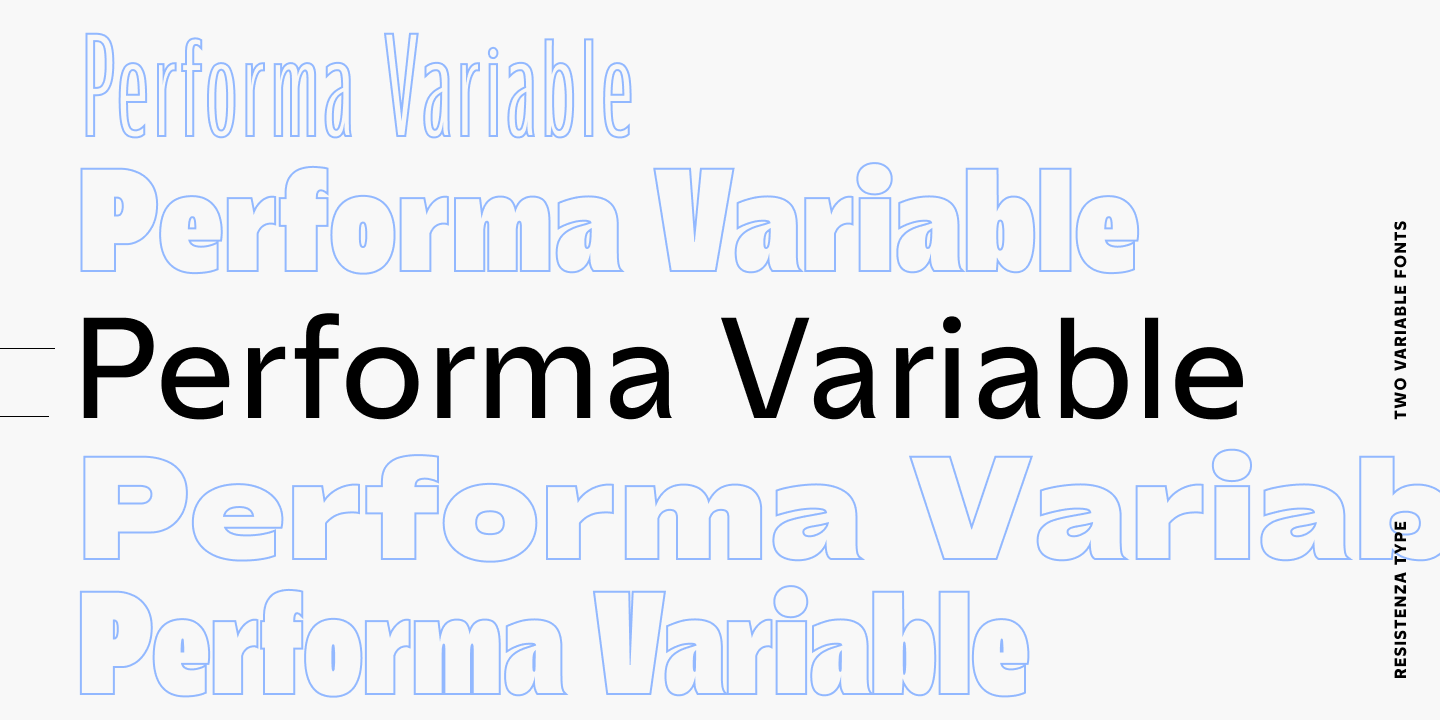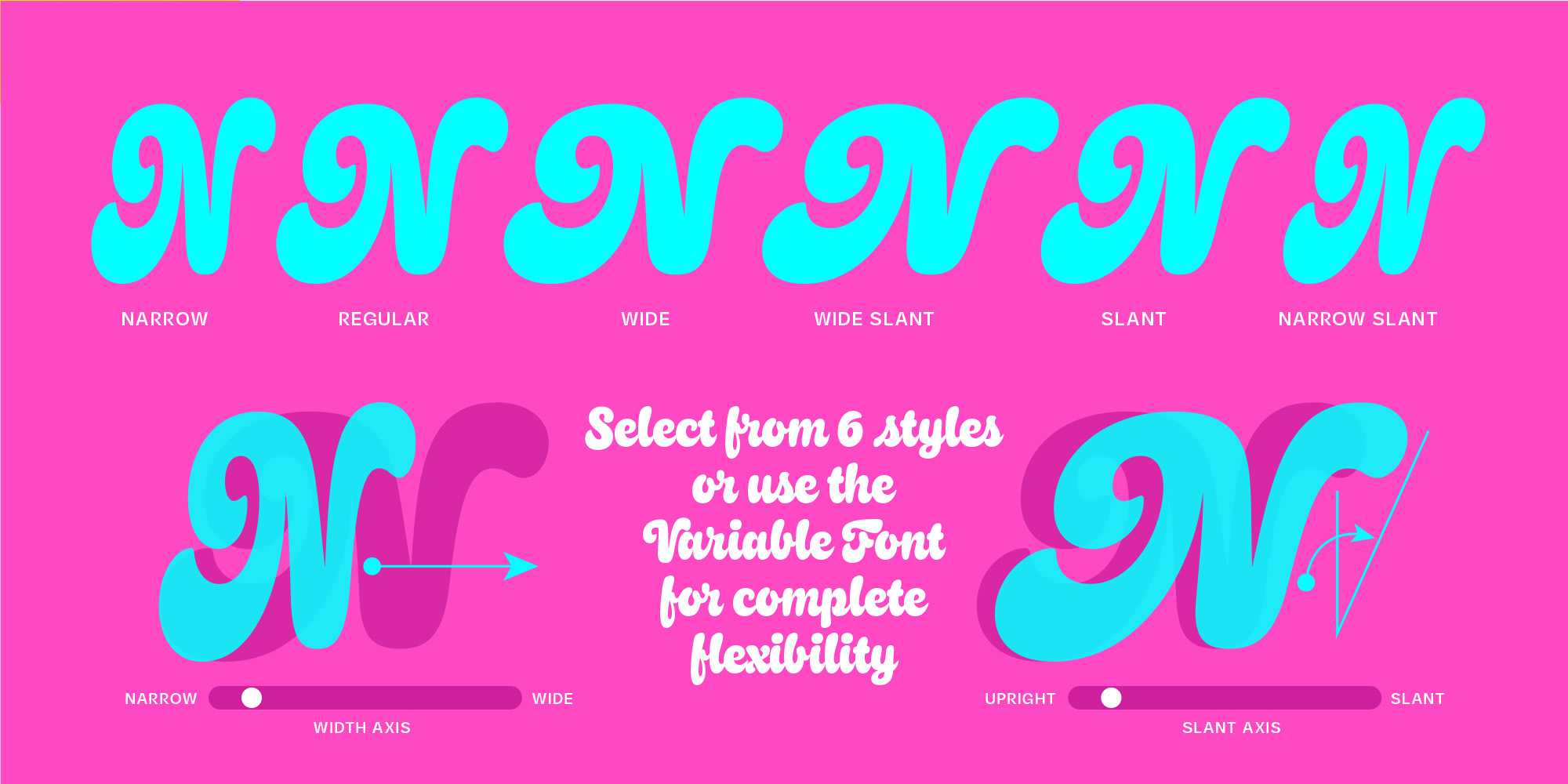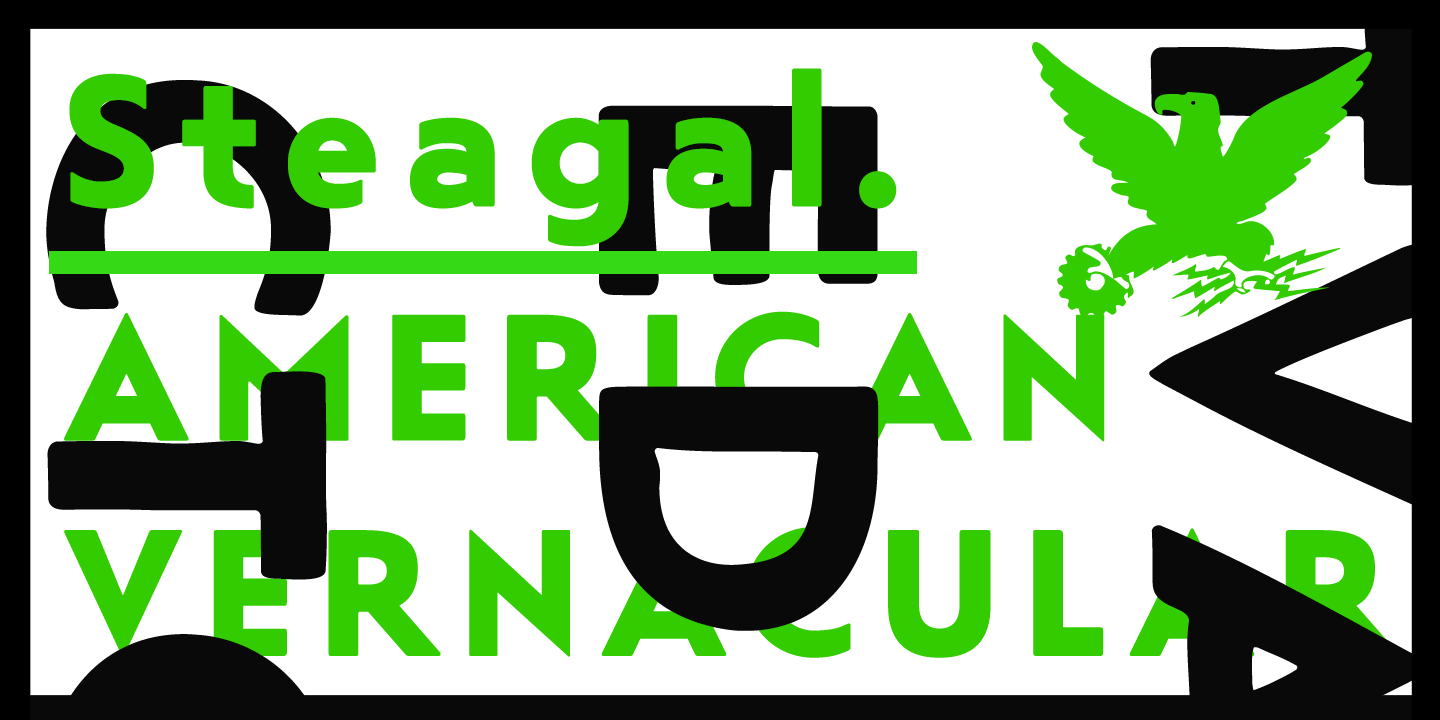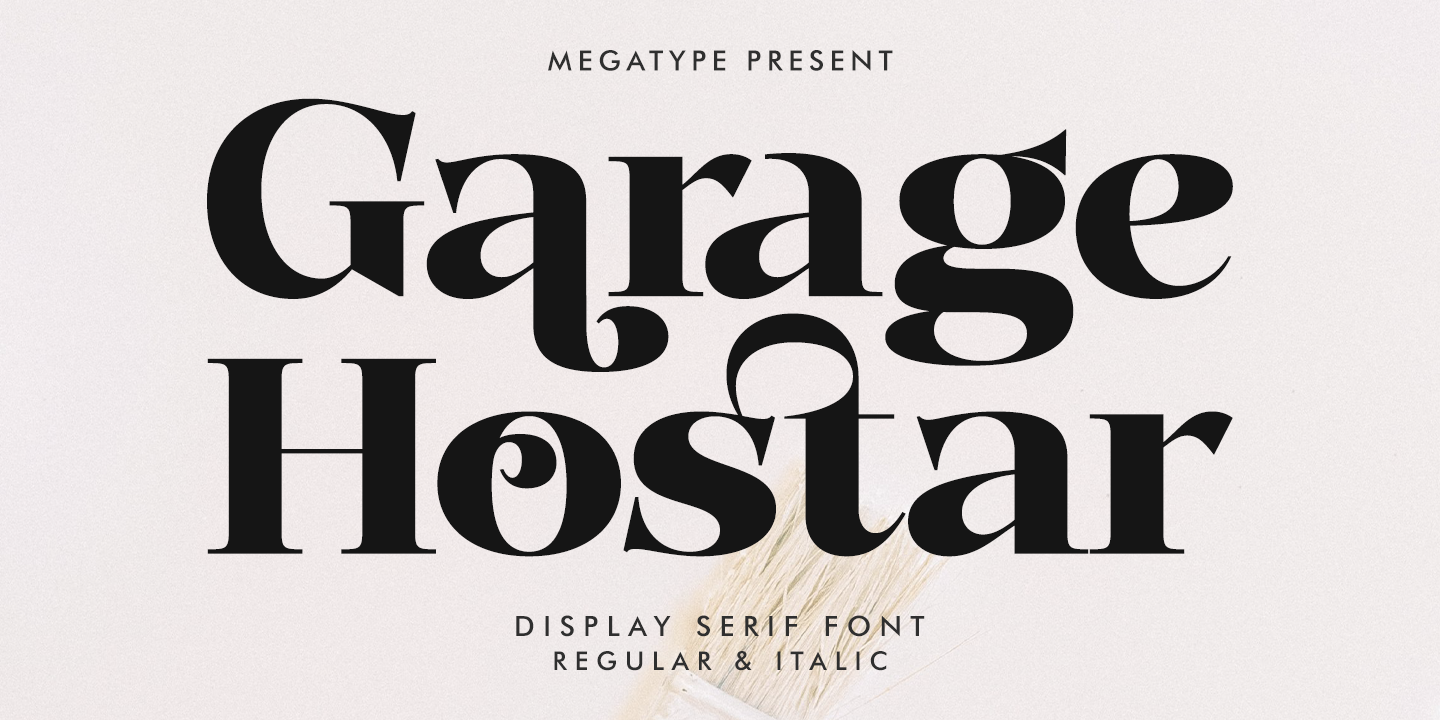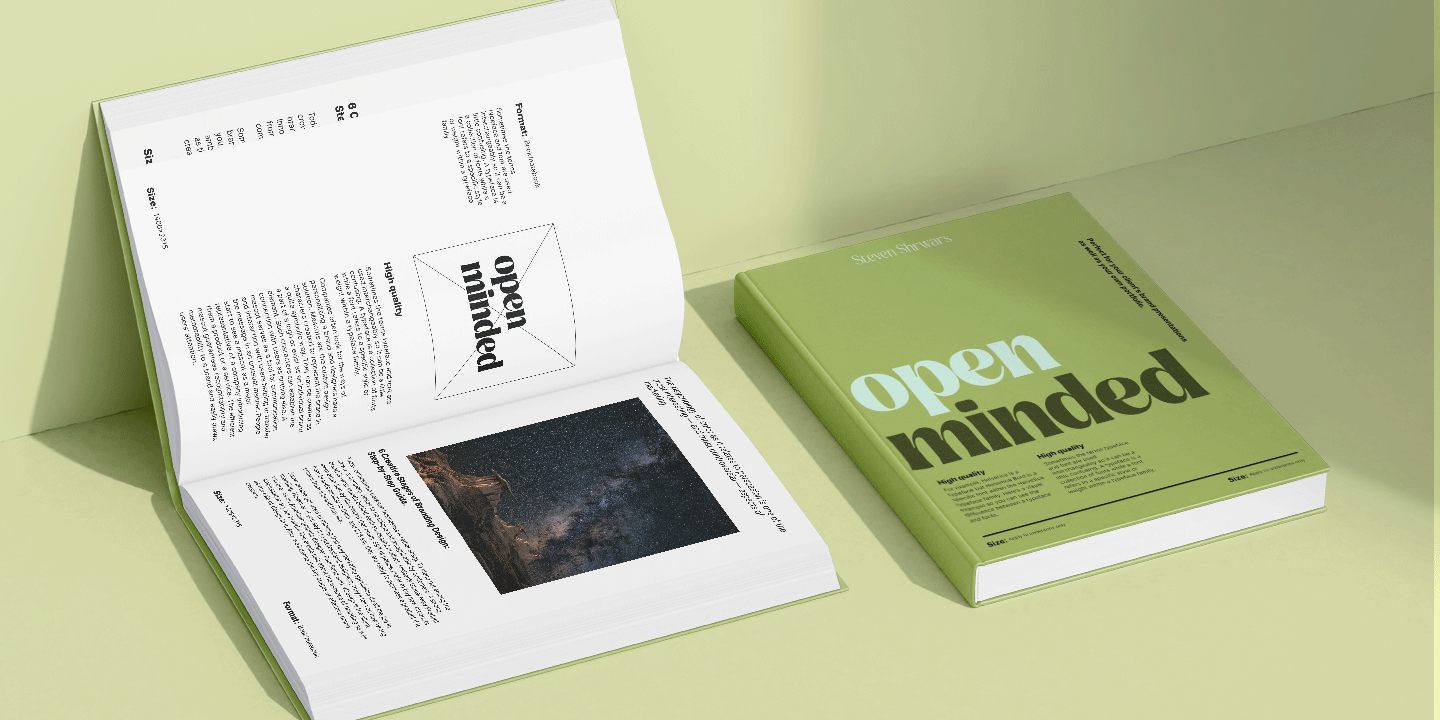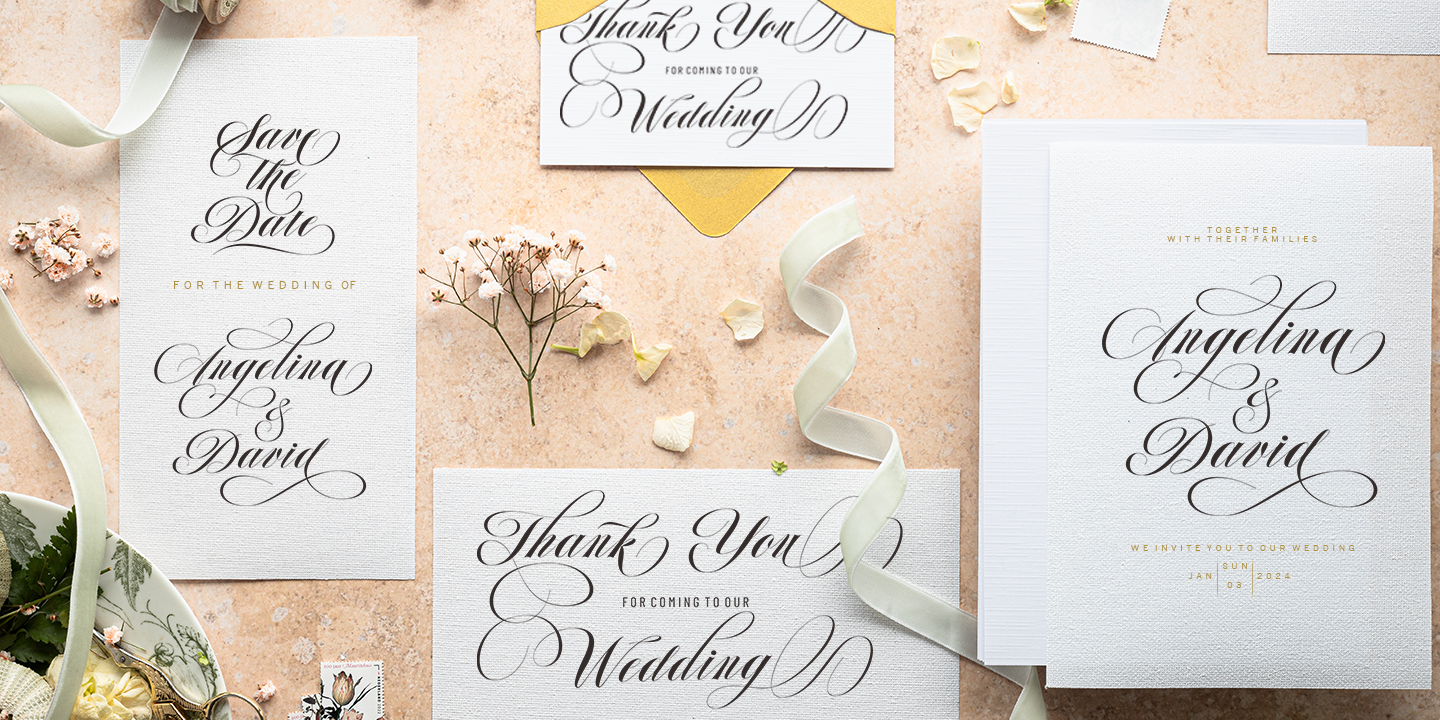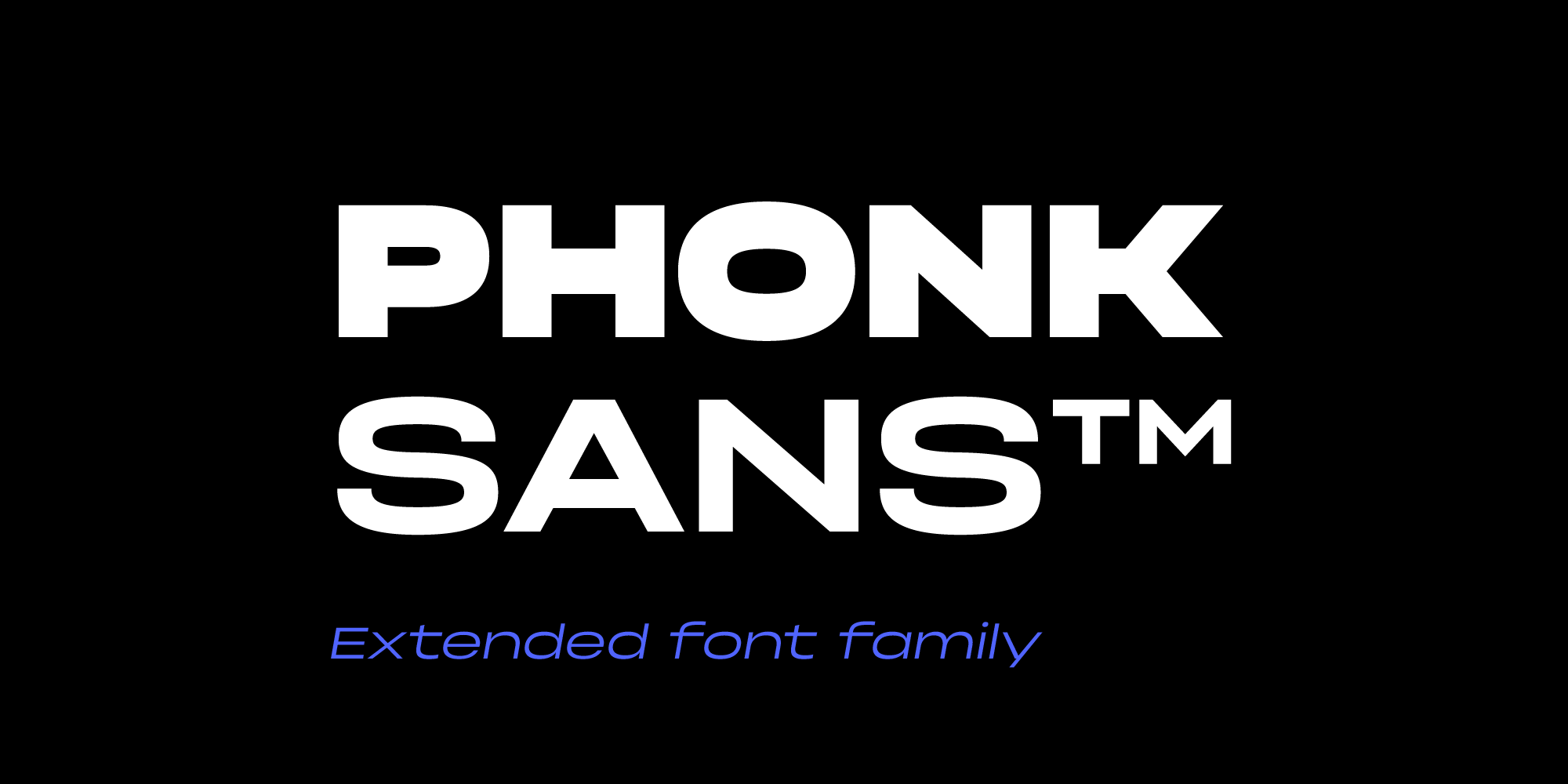
Performa is a versatile variable font that seamlessly blends geometric structure with grotesque warmth. With two finely tuned axes—Weight and Width—plus an expressive Italic companion, Performa offers a dynamic typographic system in a single, flexible file.
From ultra-light, condensed styles to bold, extended widths, Performa adapts effortlessly to a wide range of creative and professional applications. Whether you're designing sleek interfaces, editorial layouts, or bold brand identities, Performa delivers consistent style and responsive performance.
Crafted for clarity and balance, Performa features open counterforms and smooth letter shapes for optimal readability. Subtle angular details introduce energy and personality, while its variable design ensures smooth transitions between styles—making it as functional as it is expressive.
Optimized for digital and print alike, Performa's responsive flexibility and polished aesthetic make it ideal for editorial design, web typography, packaging, signage, and beyond. Wherever typography demands both adaptability and character, Performa is ready to perform.
Imagine your text dancing across the page with Coastal, a spirited script font by Positype that brings a breeze of relaxation and creativity. With its lively swashes and playful stylistic sets, Coastal captures the essence of a carefree day, transforming any design into an inviting getaway. Perfect for projects that need a touch of the 'out-of-office' vibe, Coastal offers the charm and versatility you've been looking for. Let your imagination run wild and see where this bouncy font can take you! 6 fonts for $129 | |
Steagal—a typeface that blends the charm of handcrafted details with modern precision. The standard version features softened edges and subtle brush stroke textures that give it an organic, human touch. Its unique quirks—like minimal overshoots and clean geometric forms—create a refined yet approachable aesthetic that stands out without overwhelming your design. Need something with a little more edge? The 'Rough' version of *Steagal* cranks up the character, delivering an intentionally imperfect, bold look that's brimming with personality. Whether you're designing logos, packaging, posters, or digital content, this versatile font offers endless creative possibilities. 18 fonts for $119.75 | |
| | Garage Hostar by Mega Type | A unique and highly expressive serif font that merges classical elegance with playful, modern ... | | | | |
| | Signora Classica by Black Studio | A sophisticated variable type family that seamlessly blends serif and sans-serif styles ... | | | | |
| | Michigan Script by Typehill Studio | A calligraphy script that comes with beautiful alternative characters. A mixture of copper calligraphy ... | | | | |
| | Phonk Sans by Slava Antipov | The features of the typeface are the broad large character shapes. A Strong and confident grotesque ... | | | | |